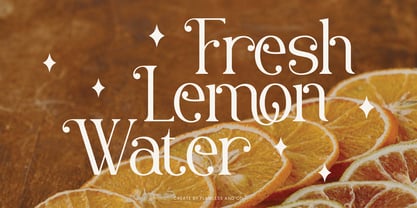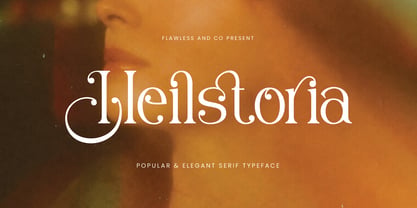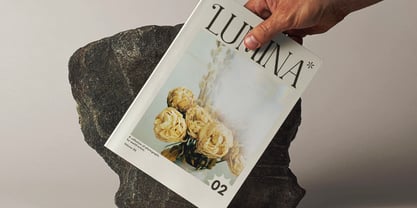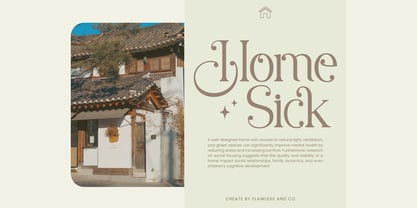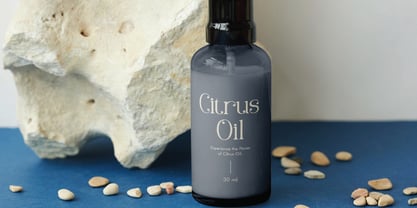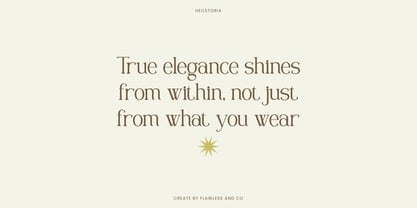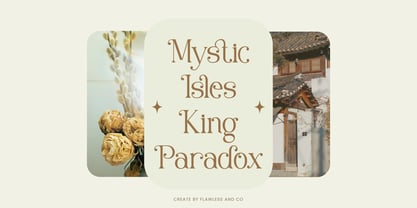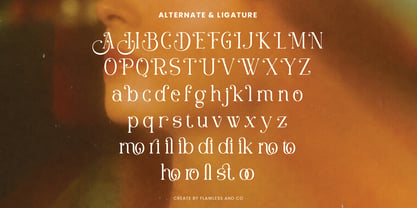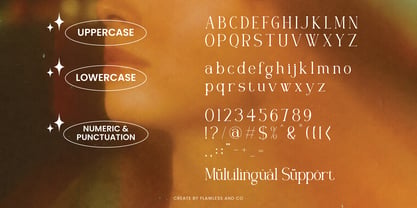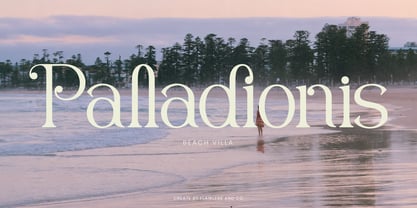
Heilstoria
The Heilstoria Font Family was designed by Achmad Yani and published by Flawlessandco. Heilstoria contains 1 styles. More about this family
Heilstoria is a modern and elegant serif font with beautiful alternates, designed to bring sophistication and charm to any design. Its refined details and graceful letterforms make it perfect for luxury branding, fashion editorials, wedding invitations, high-end packaging, and stylish logos. Elevate your designs with Heilstoria’s timeless elegance and versatility.
Features :
Multilingual, Uppercase alphabet A-Z, Lowercase alphabet a-z, Numbers 0-9, Some punctuation, Alternates & Ligatures